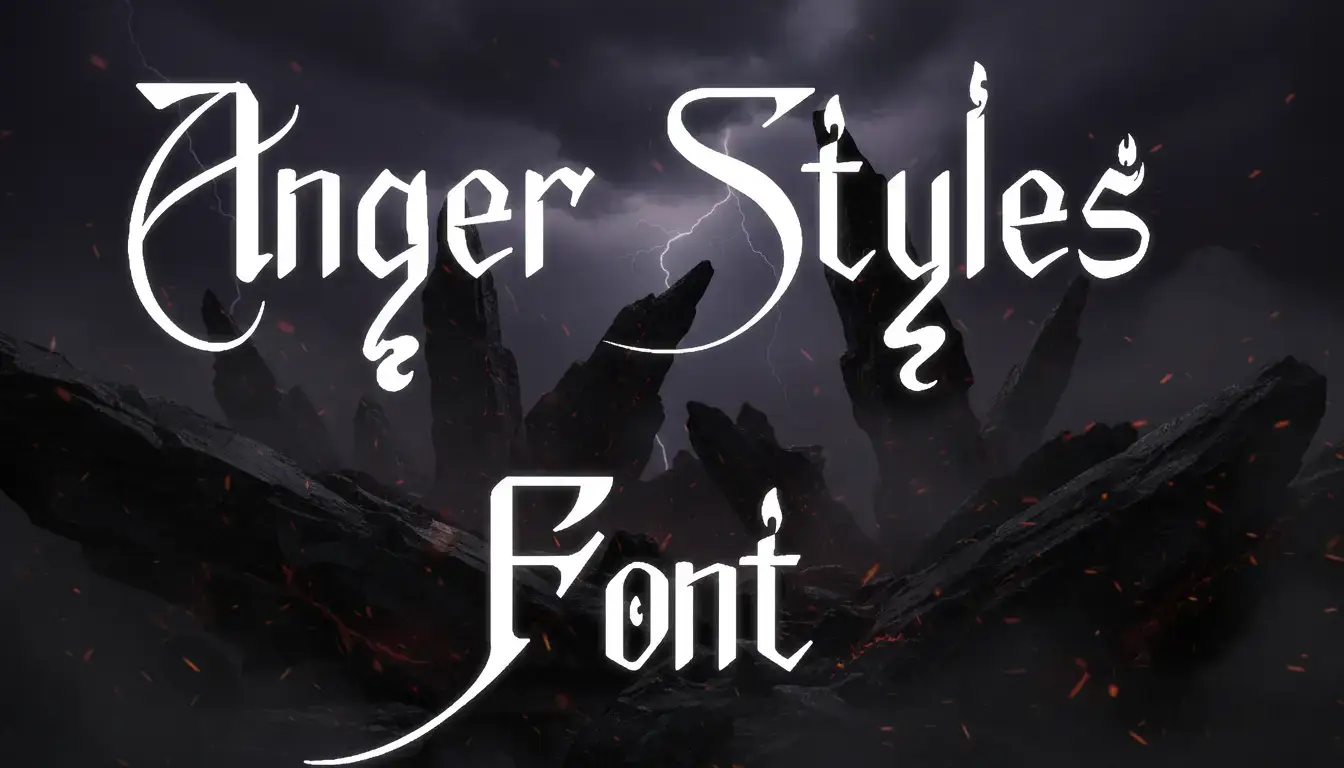
Anger Styles Font
Anger Styles is a gothic font created by Omaikraf Studio. Its pointed, heavy strokes give it a dark, dramatic blackletter look. You can download it for free and test it with your own words in the preview above.
What You Can Type With Anger Styles
You get every letter from A to Z in both cases and all the numbers from 0 to 9, which means Anger Styles can handle full sentences, dates and prices. Common punctuation such as &, !, ? and @ is included as well. It also has the accented letters you need for Spanish, French, Portuguese and Italian.
Where Anger Styles Works Best
Think of Anger Styles for tattoos, metal band logos and dark fantasy titles. Blackletter is very hard to read in all caps, so type in normal upper and lowercase.
Does Anger Styles support accented letters?
Yes. Anger Styles includes the accented letters needed for Spanish, French, Portuguese and Italian, so it works for more than just English.